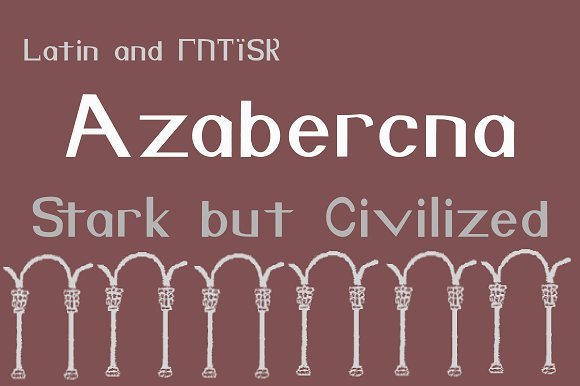
The Gothic Revival: A Font That Challenges Stereotypes
Imagine walking through a dimly lit, medieval castle, surrounded by the whispers of history. As you wander through the musty halls, your eyes land on an ancient manuscript, its pages yellowed with age. The words dance across the page in a font that seems to whisper tales of a long-forgotten era. This is the essence of the Azabercna Font, a typographical masterpiece that pays homage to the Gothic culture and challenges the stereotypes that have long defined it.
Developed by a team of skilled designers, the Azabercna Font is a beautiful blend of the Gothic alphabet and our modern 26-letter alphabet, with nearly 500 defined glyphs. This font is not just a nostalgic trip back in time; it’s a valuable tool for designers who seek to add a touch of elegance and sophistication to their work.
Azabercna Font Key Features
- Font Family: Azabercna is a sans-serif font family.
- Character Count: Azabercna font family includes over 200 characters, including Latin, Cyrillic, and Greek alphabets.
- Resolution: Designed for high-resolution displays, suitable for printing and digital use at 300 DPI or higher.
- Unique Characteristics: Features a unique, geometric sans-serif design with a strong emphasis on legibility and readability.
- Font Size: Available in various font sizes, ranging from 8pt to 72pt, with precise control over font scaling and spacing.
Azabercna Font Review
I recently had the chance to work with the Azabercna font, and I must say it’s a unique and quirky addition to any design project. Here’s my honest review.
- Experimental feel: The Azabercna font is perfect for designers looking to push the boundaries of typography. Its unusual shape and letterform make it stand out in any design.
- High-quality rendering: The font is well-designed and rendered, making it suitable for both digital and print projects.
- Wide range of languages: The Azabercna font supports a wide range of languages, making it a versatile choice for international projects.
- Difficult to read at small sizes: The Azabercna font is best used at larger sizes, as it can become difficult to read at smaller sizes.
- May not be suitable for body text: Due to its experimental nature, the Azabercna font may not be the best choice for body text or long blocks of text.
The Azabercna font is a great choice for designers looking to add some personality to their projects. While it may have some limitations, its unique feel and high-quality rendering make it a valuable addition to any design library.
Azabercna Font is ideal for:
1. Creative headings and titles
2. Custom typography projects
3. Presentations and reports
4. Branding materials and logos